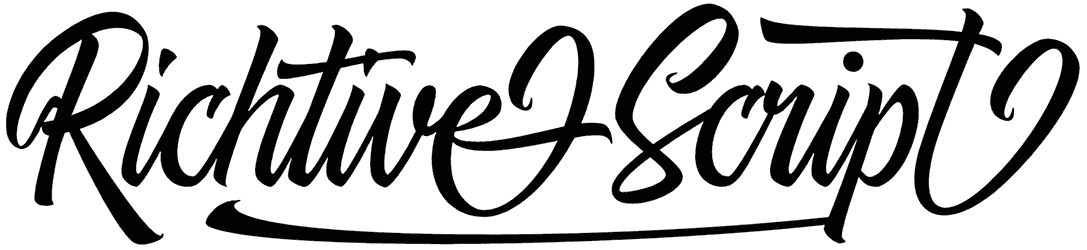
Richtive Script Font
Look at the Richtive Script font and enjoy how its spectacular design impacts your audience. This old school font has an elegant design, but it is challenging to read. You may use Richtive Script font for various cases, such as posters, flyers, and advertisements; however, numbers are not included.
Example: Signed¤
Use underscore _ to make a swash.
Example: Super_man
Use multiple underscores for different swashes.
Example: Love______letter